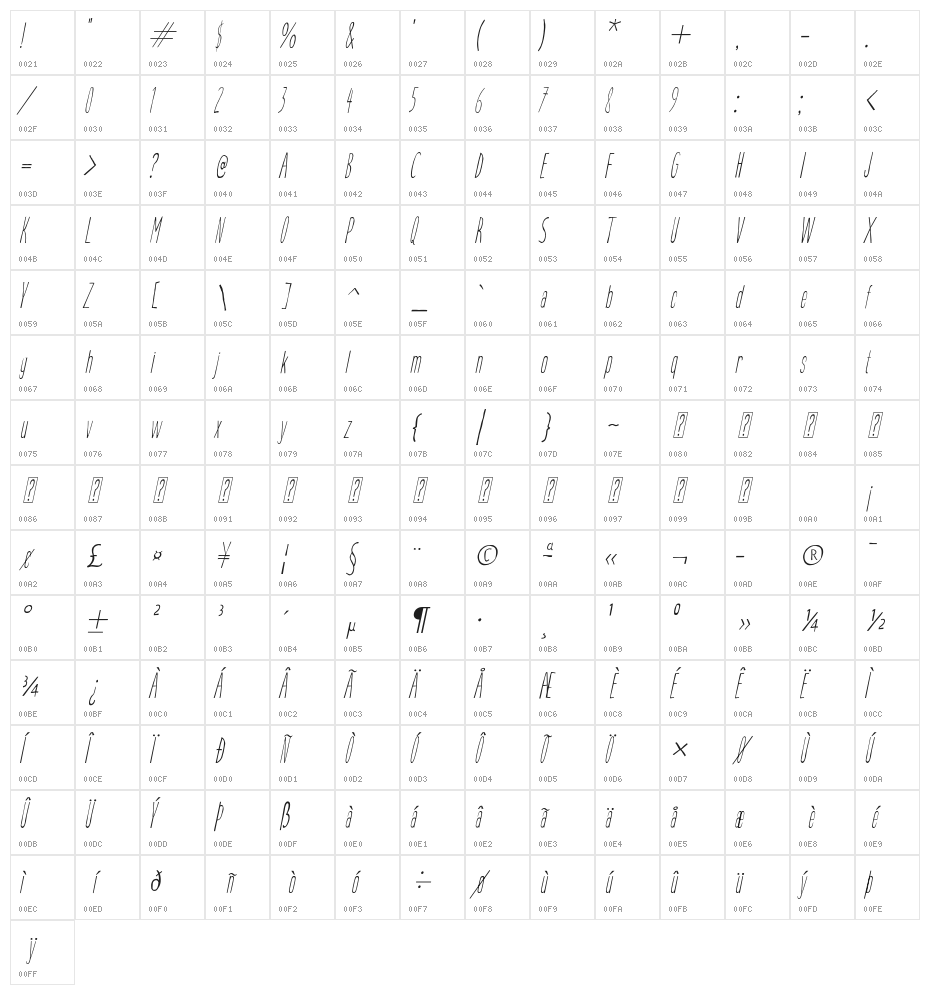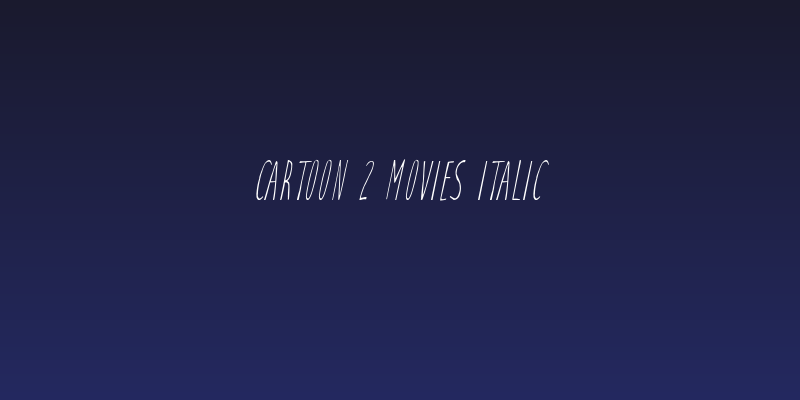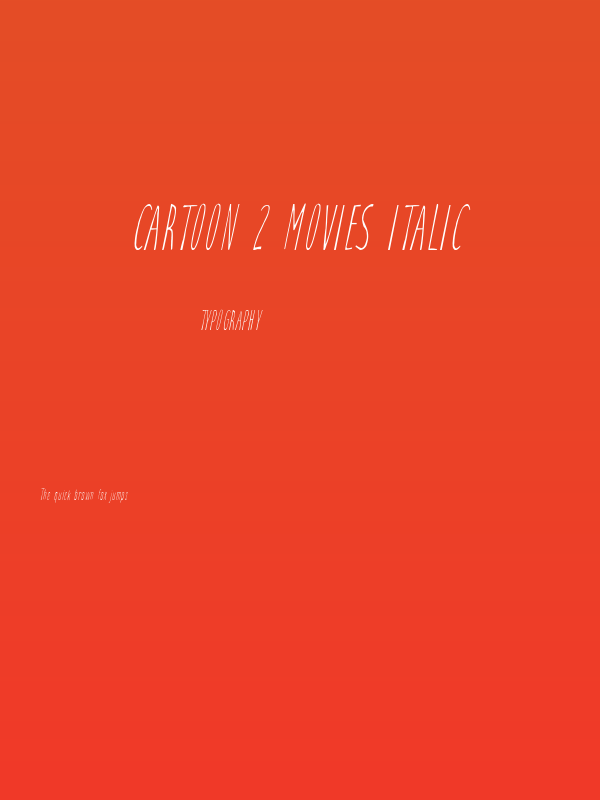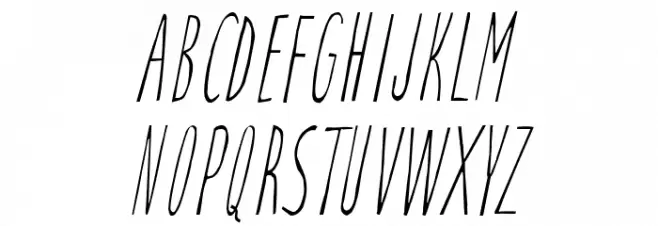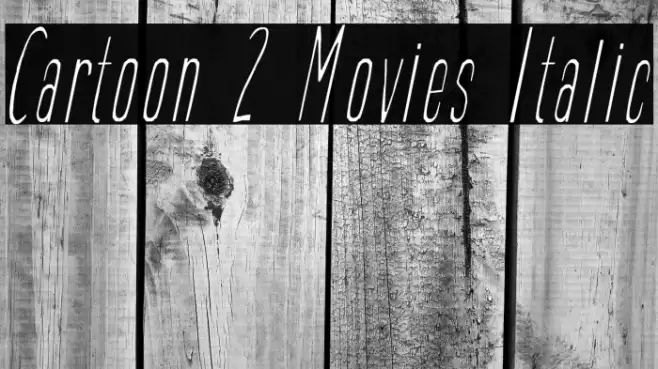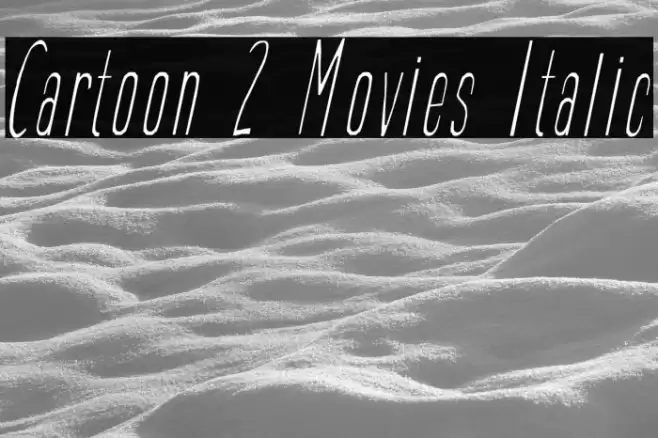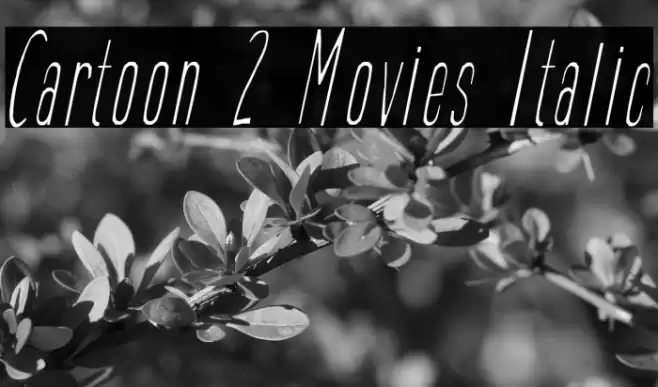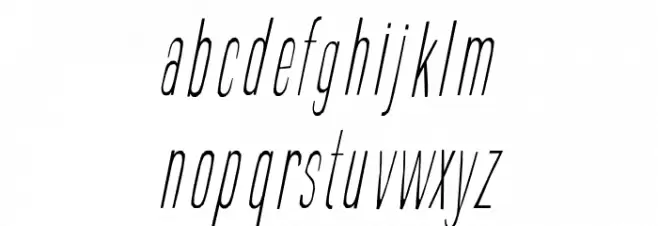
Cartoon 2 Movies Italic Font
Cartoon 2 Movies Italic Description
A thin, elegant, and italicized script font with a handwritten style, characterized by its slanted and delicate strokes.
| Overall Style | Elegant, Modern, Handwritten |
| Use Case | Headlines, Invitations, Logos |